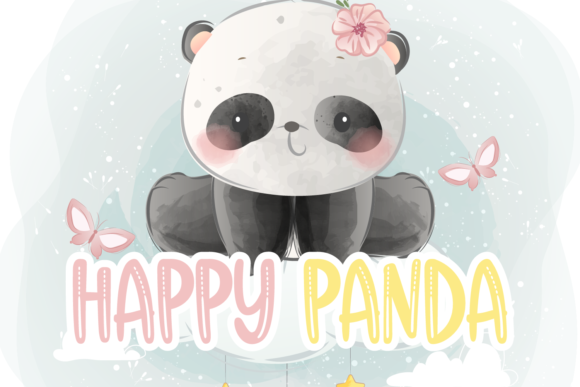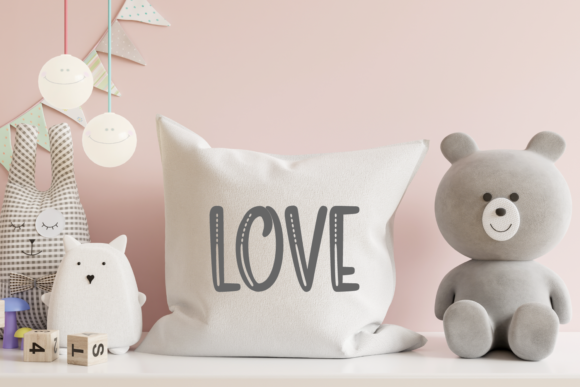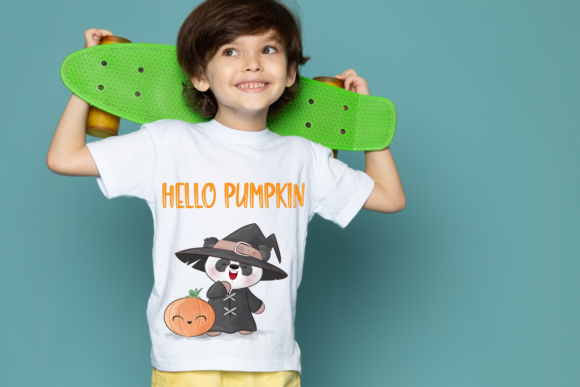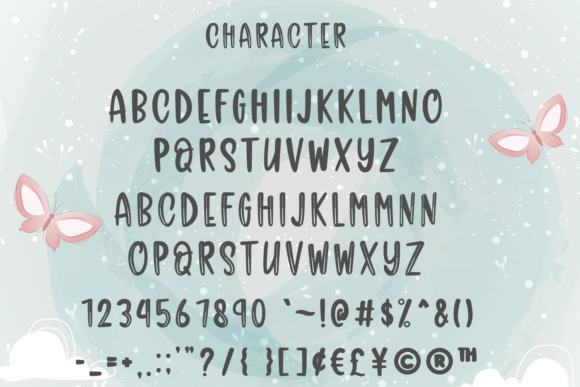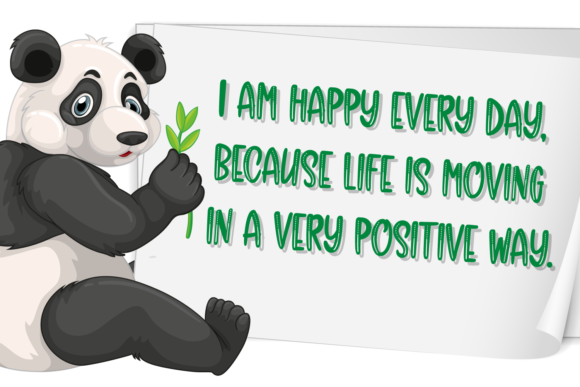
Gnomes Panda Font: The Ultimate Display Font for Creative Designs
Are you a designer or crafter looking for a unique and versatile font to elevate your creative projects? Look no further than Gnomes Panda Font! This cool, friendly, and cute display font is perfect for a wide range of designs, from playful posters and whimsical logos to charming crafts and delightful digital content. In this article, we’ll dive into the world of Gnomes Panda Font and explore its features, benefits, and uses.
What is Gnomes Panda Font?
Gnomes Panda Font is a display font that boasts a natural and unique style, making it incredibly fitting for a large pool of designs. Its distinct character and quirky charm are sure to capture the attention of your audience and leave a lasting impression. Whether you’re creating a logo, poster, or social media graphic, Gnomes Panda Font is the perfect choice to add a touch of personality and whimsy to your design.
Key Features of Gnomes Panda Font
• Unique and Quirky Style: Gnomes Panda Font features a one-of-a-kind design that’s both fun and playful, making it perfect for creative projects that require a touch of personality.
• Cute and Friendly: The font’s friendly and approachable style makes it ideal for designs that require a warm and inviting tone.
• Natural and Earthy: Gnomes Panda Font has a natural, earthy feel that’s perfect for designs that require a organic and wholesome look.
• Versatile: This font is incredibly versatile and can be used for a wide range of designs, from posters and logos to crafts and digital content.
Benefits of Using Gnomes Panda Font
So, why choose Gnomes Panda Font for your creative projects? Here are just a few benefits of using this amazing display font:
• Adds Personality to Your Design: Gnomes Panda Font is the perfect way to add a touch of personality and whimsy to your designs, setting them apart from the crowd.
• Enhances Creativity: With its unique and quirky style, Gnomes Panda Font is sure to inspire your creativity and take your designs to the next level.
• Perfect for Branding: This font is ideal for creating memorable and recognizable brand identities that will leave a lasting impression on your audience.
• Easily Readable: Despite its playful style, Gnomes Panda Font is easily readable, making it perfect for designs that require a clear and concise message.
Uses of Gnomes Panda Font
Gnomes Panda Font is incredibly versatile and can be used for a wide range of creative projects, including:
• Posters and Flyers: Create eye-catching posters and flyers that will grab the attention of your audience.
• Logos and Branding: Use Gnomes Panda Font to create memorable and recognizable brand identities.
• Crafts and DIY Projects: Add a touch of personality to your crafts and DIY projects with this unique and quirky font.
• Digital Content: Use Gnomes Panda Font to create engaging and shareable digital content, such as social media graphics and blog posts.